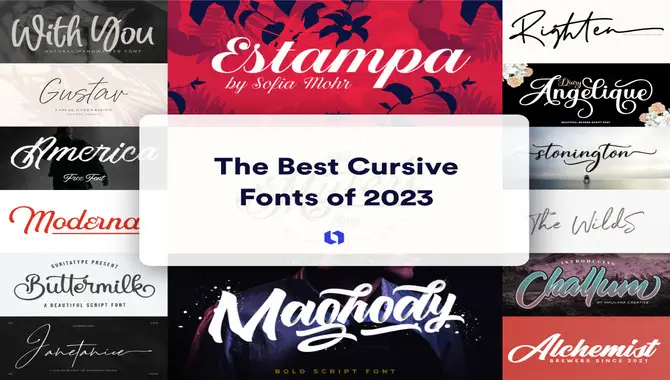
What Font Is Cursive – Details To Know
What Font Is Cursive
Describing What Font Is Cursive
Cursive font is characterized by its flowing and connected letters, resembling an elegant handwritten script. It typically features slanted and looped strokes, emphasizing a sense of fluidity and grace.
Cursive fonts are often used in formal invitations, decorative designs, and artistic projects, adding a touch of sophistication and personal charm to the text. Here we give you step-by-step guidelines on what font is cursive.
Definition Of Cursive Fonts
Cursive fonts are a style of writing that imitates handwriting with connected and flowing strokes. Cursive handwriting joins letters together, creating a more elegant and decorative appearance that these fonts resemble.
They are commonly handy for artistic purposes, invitations, and formal documents to add a personal touch. Examples of cursive fonts include Script, Calligraphy, and Handwriting styles.
Characteristics Of Cursive Fonts
Designers create cursive fonts to imitate the flowing, connected strokes of handwriting. They feature slanted and looped letterforms, creating a more elegant and decorative appearance. Cursive fonts often have varying line thicknesses, enhancing the illusion of handwriting.
Some popular cursive fonts include “Brush Script,” “Snell Roundhand,” and “Zapfino.” People commonly use these fonts to add a personal touch to formal invitations, branding, and artistic designs.
Variations Of Cursive Fonts
There are numerous variations of cursive fonts available, each with its unique style and flair. Some popular choices include Brush Script, Edwardian, French, and Copperplate. Designers often use these fonts that mimic handwritten cursive writing for elegant, sophisticated designs, invitations, and formal documents. Selecting a specific cursive font depends on personal preference and the desired aesthetic.
Applications Of Cursive Fonts
Cursive or script fonts mimic handwriting with connected letters and flowing strokes. They find applications in various design projects, including invitations, wedding stationery, logos, and elegant branding. Popular cursive fonts include “Cursive Standard,” “Brush Script,” and “Lobster.” These fonts add a touch of sophistication, creativity, and personalization to digital and print materials.
Digital Representations
Designers create cursive fonts in digital representations to mimic the fluid and connected handwriting style. They feature joined and looping characters, creating a sense of elegance and flow.
Examples of popular cursive fonts include “Brush Script,” “Lucida Handwriting,” and “Snell Roundhand.” These fonts add a touch of sophistication and personalization to digital designs, capturing the essence of handwritten text in a digital format.
Education And Learning Cursive
The term “cursive” refers to a style of handwriting characterized by connected, flowing letters. Various fonts can emulate cursive writing, which is not tied to a specific font. Common cursive fonts include “Script,” “Brush Script,” and “Lucida Handwriting.” The font choice depends on personal preference and the desired aesthetic, as cursive can vary in style and appearance across different fonts.
Understanding what font is cursive is important for those who want to create a handwritten feel in their digital documents. Cursive fonts are designed to mimic the fluid, connected strokes of handwriting and can add a touch of elegance and personality to any project.
It’s important to note that many different cursive fonts are available, each with its unique style and characteristics. By experimenting with different cursive fonts, you can find the perfect one to suit your needs and make your text stand out.
FAQ
1.What Is A Cursive Font?
Ans: In a cursive font, the letters connect to form a continuous flow of handwriting.
2.What Are Some Examples Of Cursive Fonts?
Ans: Some popular cursive fonts include Brush Script, Lucida Handwriting, and Edwardian Script.
3.Are Cursive Fonts Only Handy For Handwriting-Style Designs?
Ans: Yes, you can use cursive fonts for various applications, including formal invitations, logos, and branding.
4.Can Cursive Fonts Be Difficult To Read?
Ans: Some cursive fonts can be difficult to read if they are overly decorative or have a lot of flourishes. Many designers create cursive fonts to be legible and easy to read.
5.Can Cursive Fonts Be Used For Body Text In A Document?
Ans: While cursive fonts can be used for headings and titles, they are generally not recommended for body text as they can be harder to read in longer passages.